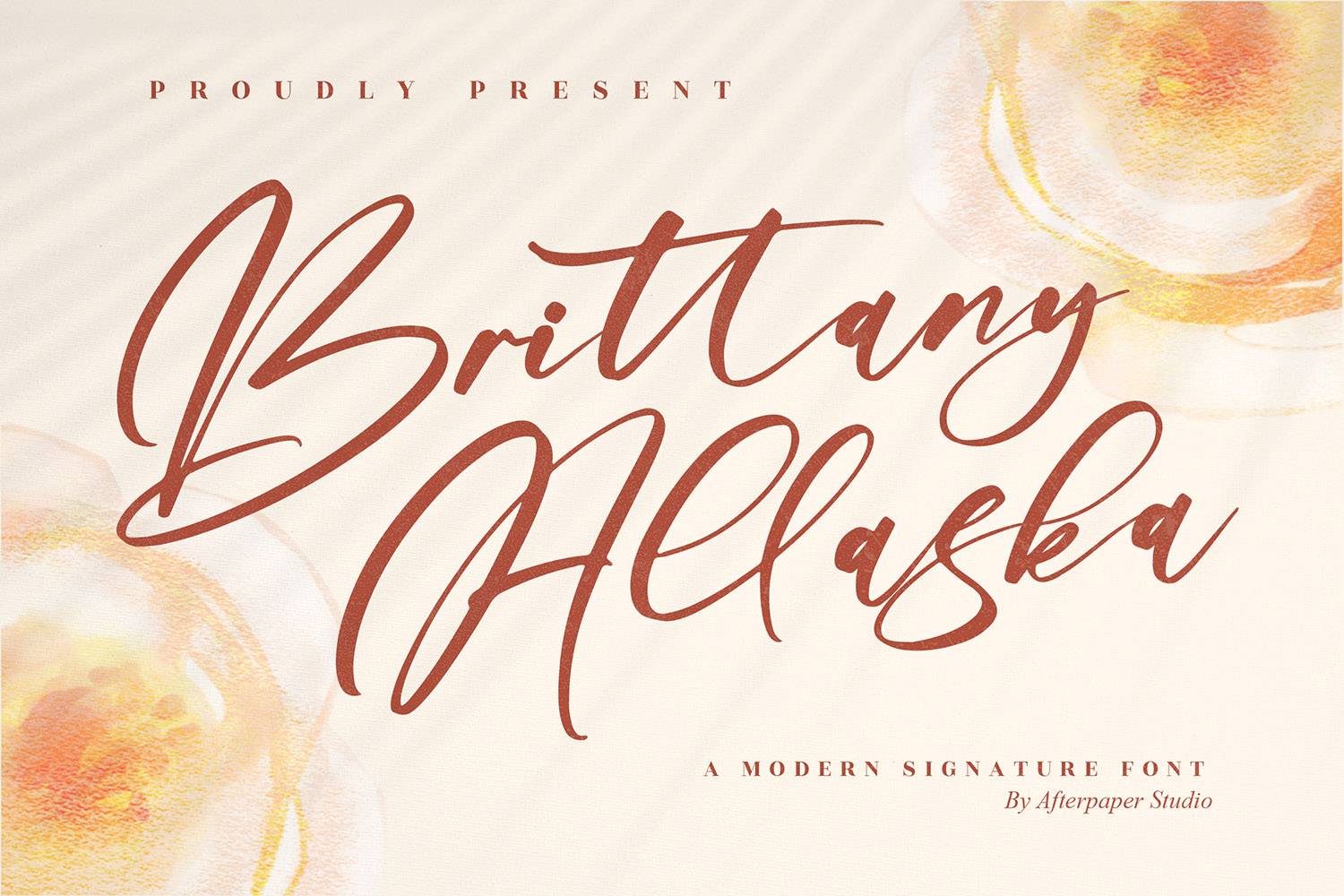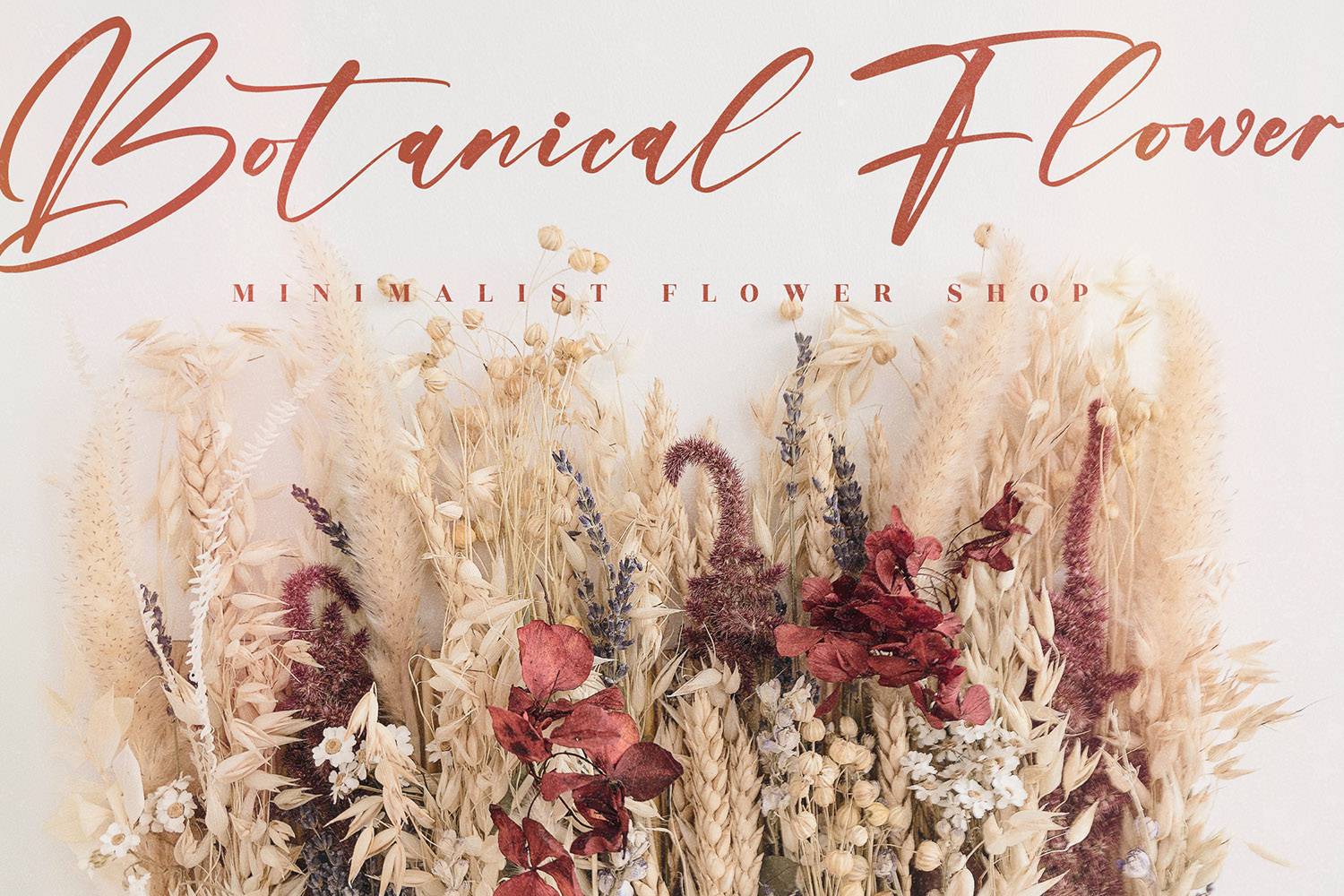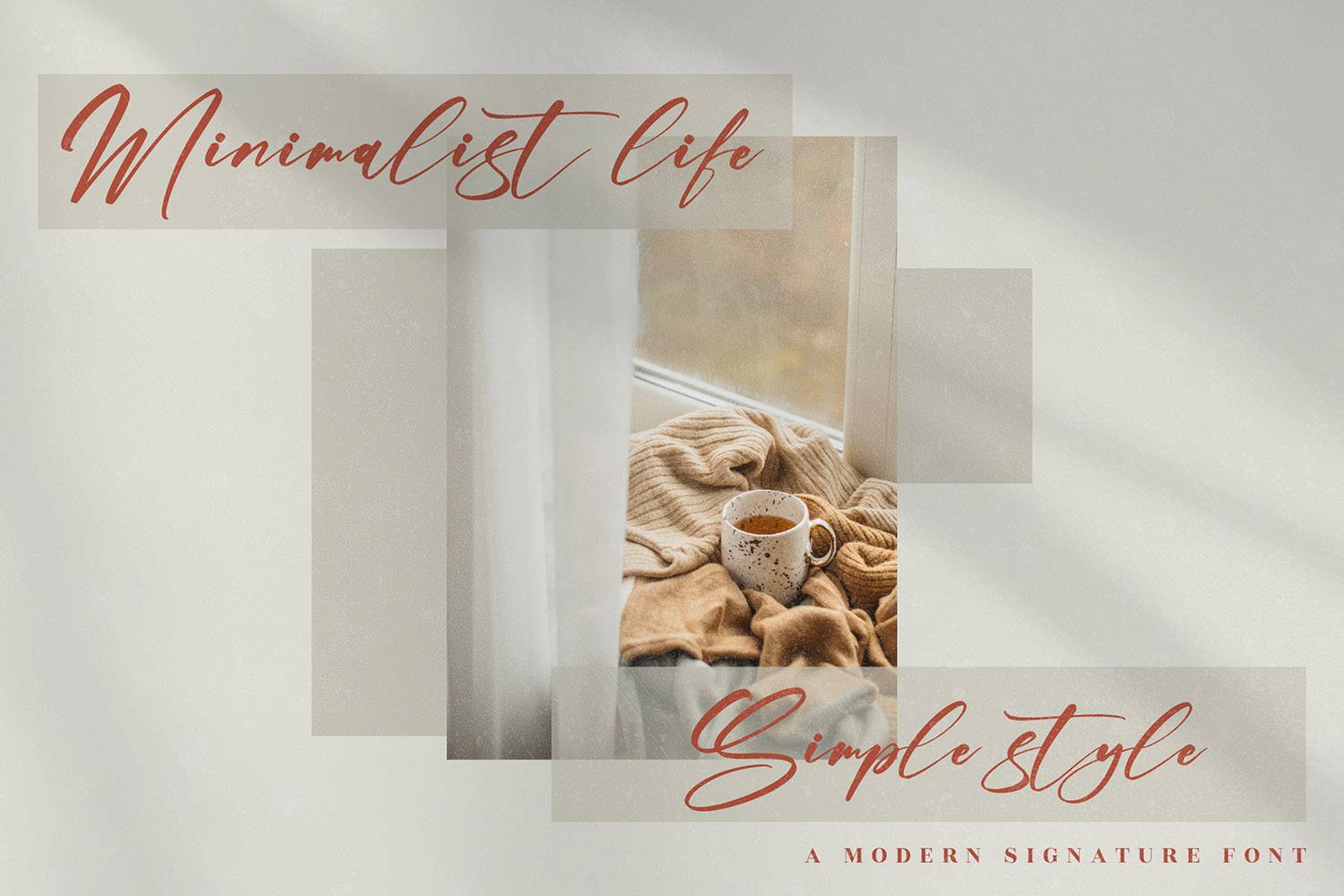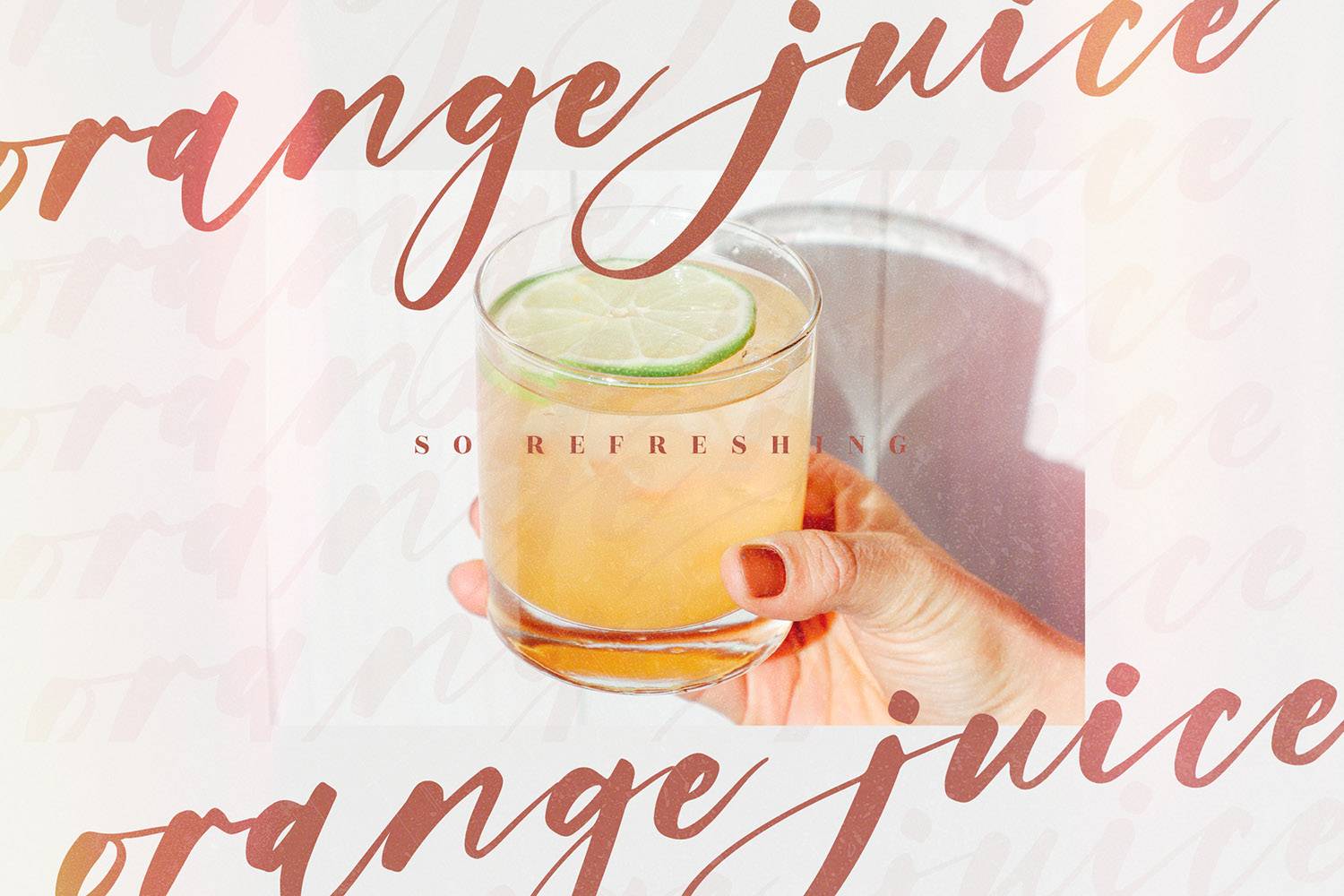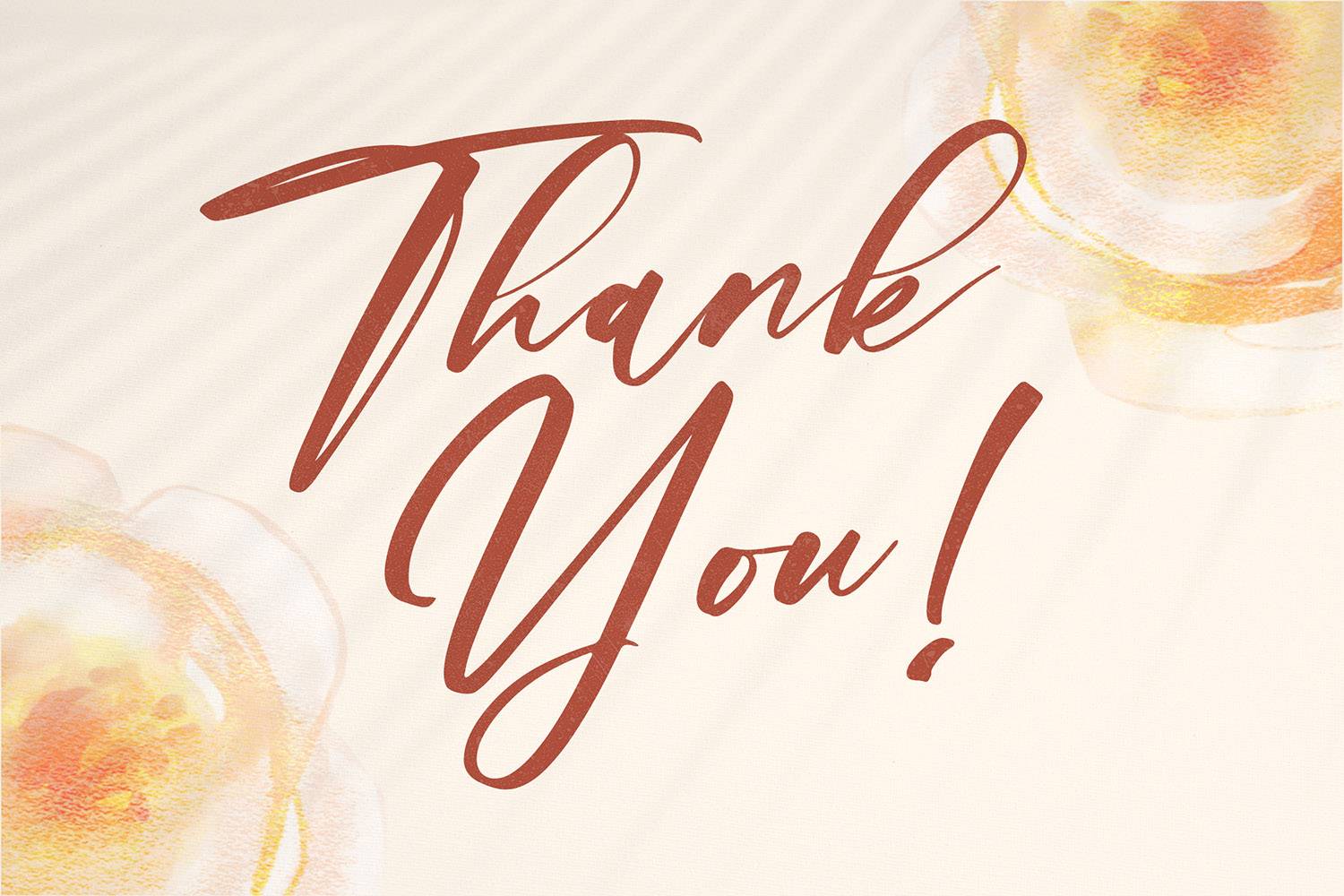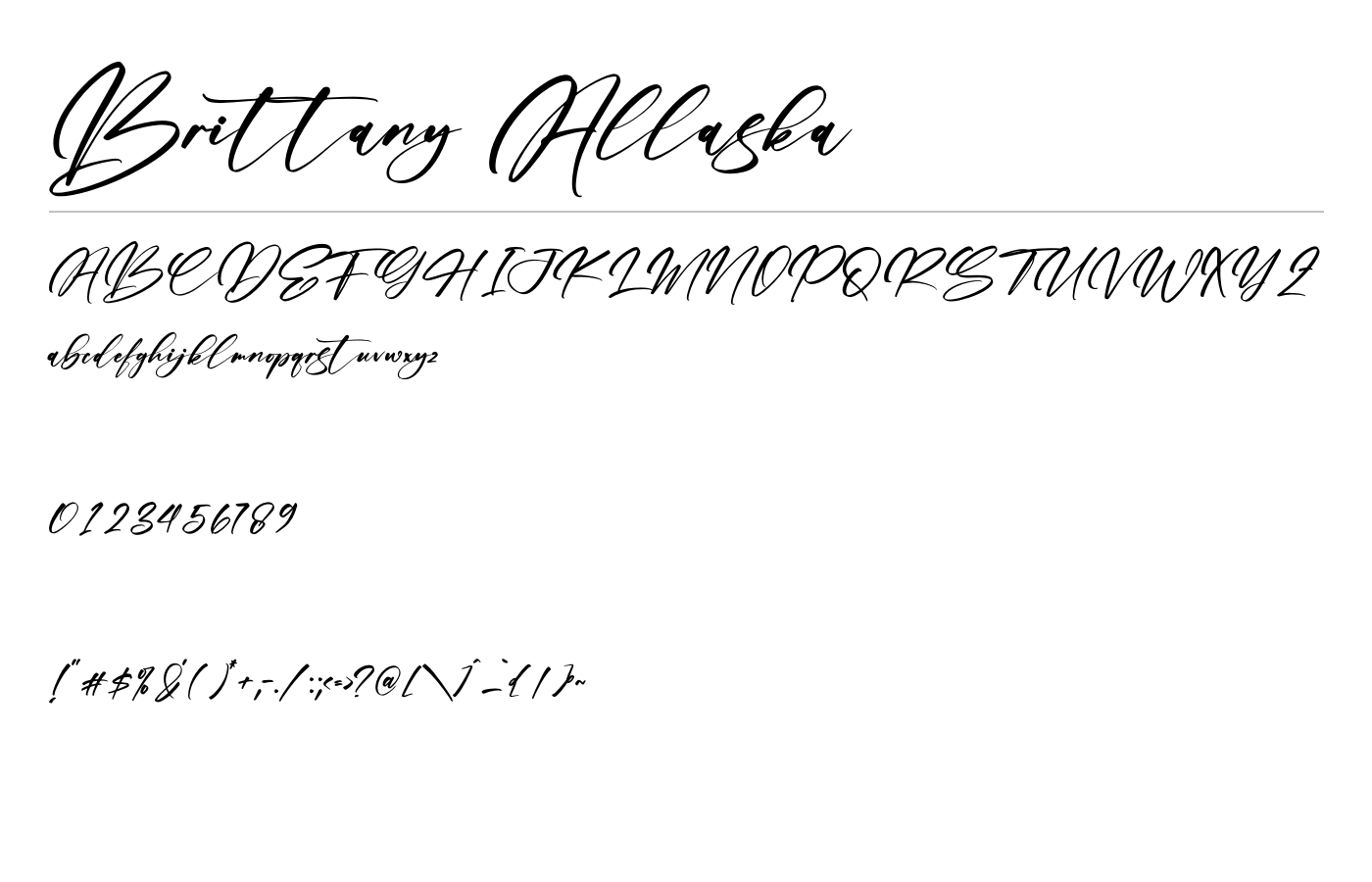
Brittany Allaska is an elegant script font featuring flowing, hand-lettered strokes with moderate contrast and a refined, graceful style. Its smooth, connected letterforms with stylish swashes make it perfect for romantic and sophisticated branding, invitations, and headlines that need a touch of personal charm and class. This font works beautifully in projects that seek a modern yet timeless handwritten feel.
Brittany Allaska Font
About Brittany Allaska Font